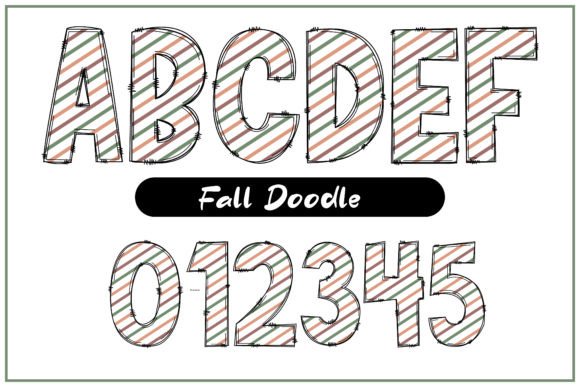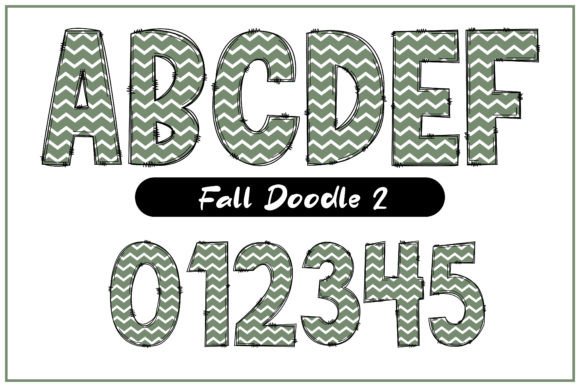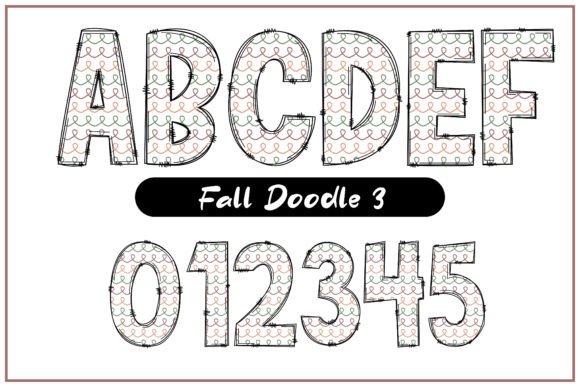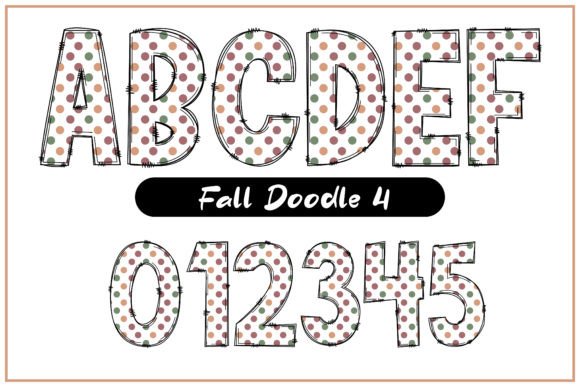
Fall Doodle Font: The Perfect Addition to Your Autumn Projects
As the leaves change colors and the air grows crisper, it’s the perfect time to get creative with your designs. Introducing the Fall Doodle Font, a super festive font that’s sure to add a touch of autumnal charm to your projects. In this article, we’ll dive into the features and benefits of this amazing font, and explore how you can use it to create stunning designs for the season.
What is Fall Doodle Font?
Fall Doodle Font is a specially designed font that’s perfect for Autumn-themed projects. Its playful, doodle-inspired style makes it ideal for creating cute monogrammed mugs, seasonal banners, sublimation projects, and so much more. Whether you’re a designer, crafter, or DIY enthusiast, this font is sure to become a favorite in your collection.
Key Features of Fall Doodle Font
- Color Font (Opentype-SVG): Fall Doodle Font is a color font, which means it comes with built-in color layers that can be easily edited and customized. This feature makes it perfect for creating vibrant and eye-catching designs.
Project Ideas with Fall Doodle Font
Now that you’ve got Fall Doodle Font, it’s time to get creative! Here are some project ideas to get you started:
- Monogrammed Mugs: Add a personal touch to your mugs with cute monograms and autumnal designs.
- Seasonal Banners: Create eye-catching banners for your blog, social media, or website with Fall Doodle Font.
- Sublimation Projects: Use Fall Doodle Font to create stunning sublimation projects, such as customized tumblers, phone cases, and more.
- DIY Crafts: Add a touch of autumnal charm to your DIY crafts, such as cards, gift tags, and decorations.
Tips and Tricks for Using Fall Doodle Font
Here are some tips and tricks to help you get the most out of Fall Doodle Font:
- Experiment with Colors: Don’t be afraid to experiment with different color combinations to create unique and eye-catching designs.
- Play with Layering: Take advantage of the font’s color layers to create intricate and layered designs.
- Use it with Other Fonts: Combine Fall Doodle Font with other fonts to create interesting and dynamic text combinations.
Fall Doodle Font is a fantastic addition to any designer’s or crafter’s collection. Its playful, doodle-inspired style and compatibility with popular design software make it perfect for creating stunning Autumn-themed projects. With our Ultimate Font Guide and these project ideas, tips, and tricks, you’ll be well on your way to creating amazing designs with Fall Doodle Font. So why wait? Get creative and make the most of this amazing font!